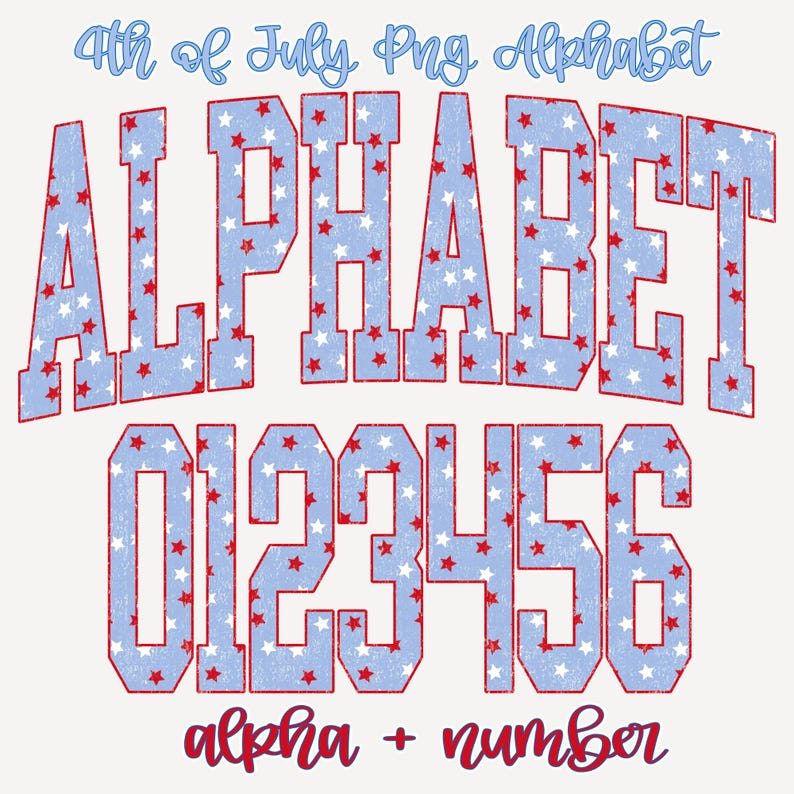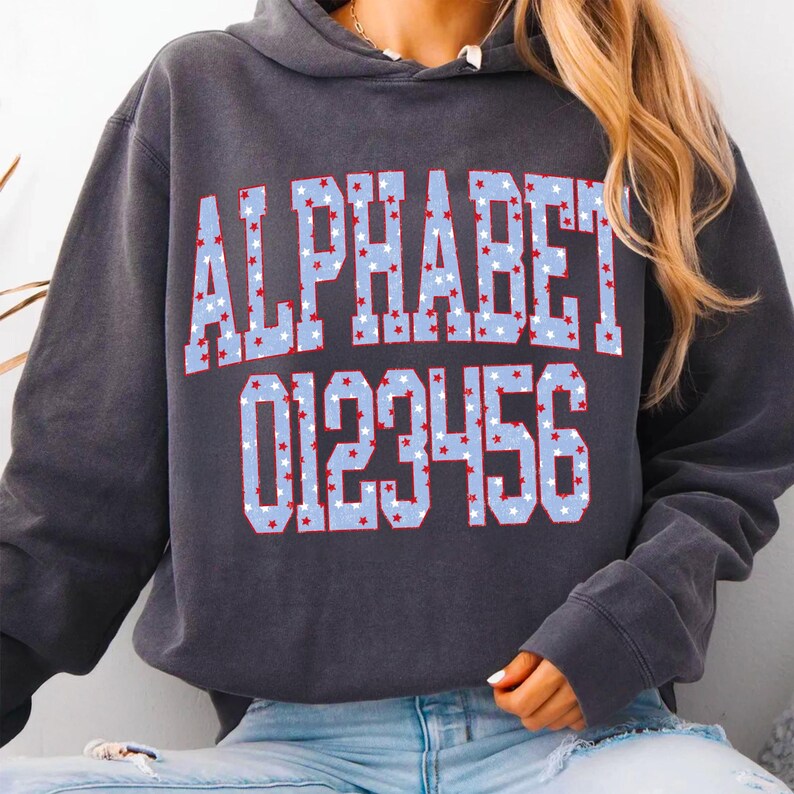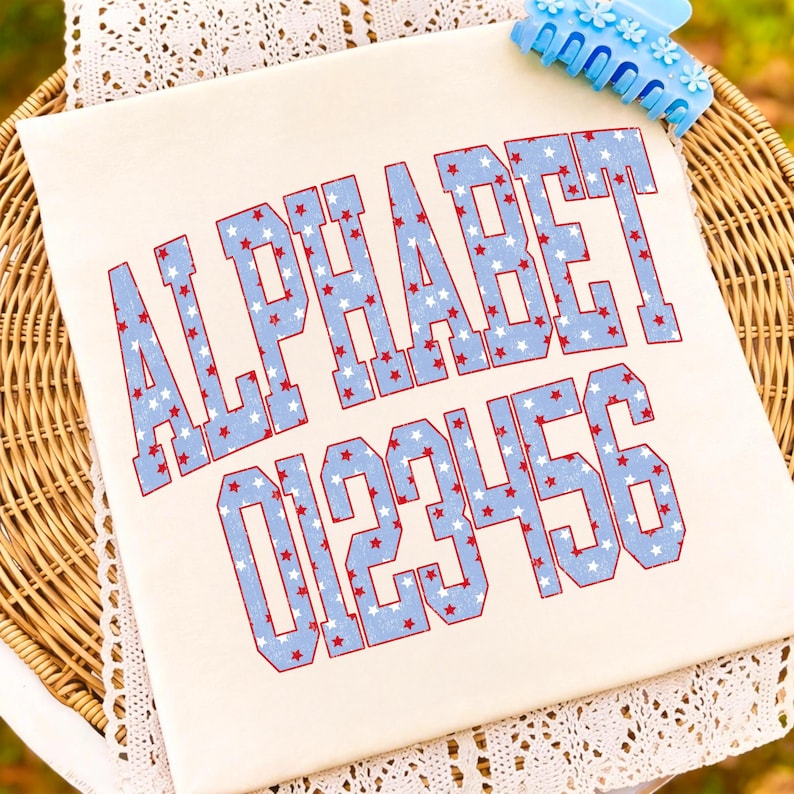
4th of July Distressed Alphabet PNG Patriotic Letters and Numbers
DIY 4th of July Crafts: Create Stunning Apparel with This Patriotic Distressed Varsity Alphabet PNG
4th of July Distressed Alphabet PNG Patriotic Letters and Numbers
As Independence Day approaches, crafters and DIY enthusiasts everywhere are looking for the perfect designs to show off their patriotic spirit. Whether you are prepping for a backyard family barbecue, planning outfits for a local parade, or launching a seasonal collection for your e-commerce shop, having the right graphics makes all the difference. That is where the 4th of July Distressed Alphabet PNG bundle comes in. This vibrant, high-quality digital design kit is your ticket to creating standout, festive apparel and home decor that captures the energetic spirit of the USA.
Bold Varsity Style Meets Patriotic Flair
Patriotic USA Varsity Font Clipart for Sublimation
What makes this digital download a must-have for the upcoming holiday is its unique, eye-catching aesthetic. The collection features a distressed varsity texture that gives your projects a trendy, vintage-athletic look. Each letter and number is styled with a classic red and white star pattern, encased in a bold red outline that pops beautifully against any background.
Versatile Crafting Ideas for Independence Day and Beyond
Independence Day Distressed Varsity Font PNG Bundle
The beauty of a full alphabet and number bundle is the endless customization it offers. You aren’t locked into a pre-made phrase; you can spell out custom family names, graduation years, local sports teams, or classic patriotic slogans like “USA,” “FREEDOM,” and “JULY 4.”
This versatile pack is ideal for a wide range of creative projects:
* Custom Apparel: Design eye-catching T-shirts, festive hoodies, and cozy sweatshirts for the whole family.
* Personalized Drinkware: Create custom sublimation mugs, tumblers, and can coolers to keep your drinks cold in style.
* Accessories & Decor: Elevate plain tote bags, journal covers, throw pillows, and wall art with a splash of red, white, and blue.